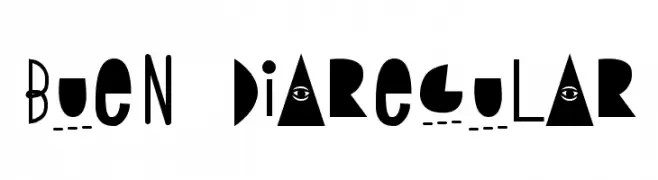
( Fonts by Marty Bee - www.martybee.com )
A bold, brushstroke font with a dynamic, hand-painted style.
( Fonts by Rodrigo German - RASDESIGN )
A playful and eclectic font with geometric and whimsical elements.
( Fonts by Marty Bee - www.martybee.com )
A bold, brush-style font with an expressive and dynamic appearance.
( Fonts by Adien Gunarta - fontasticindonesia.blogspot.com )
A playful and whimsical font with hand-drawn, irregular letterforms.